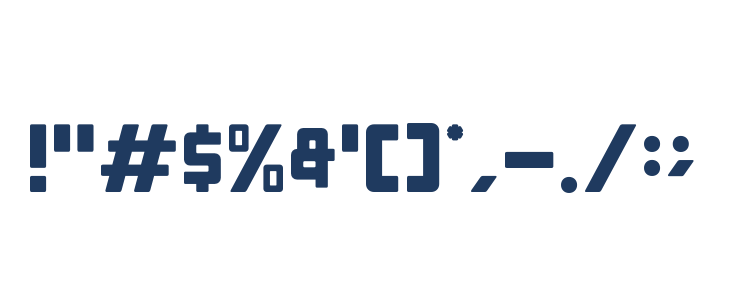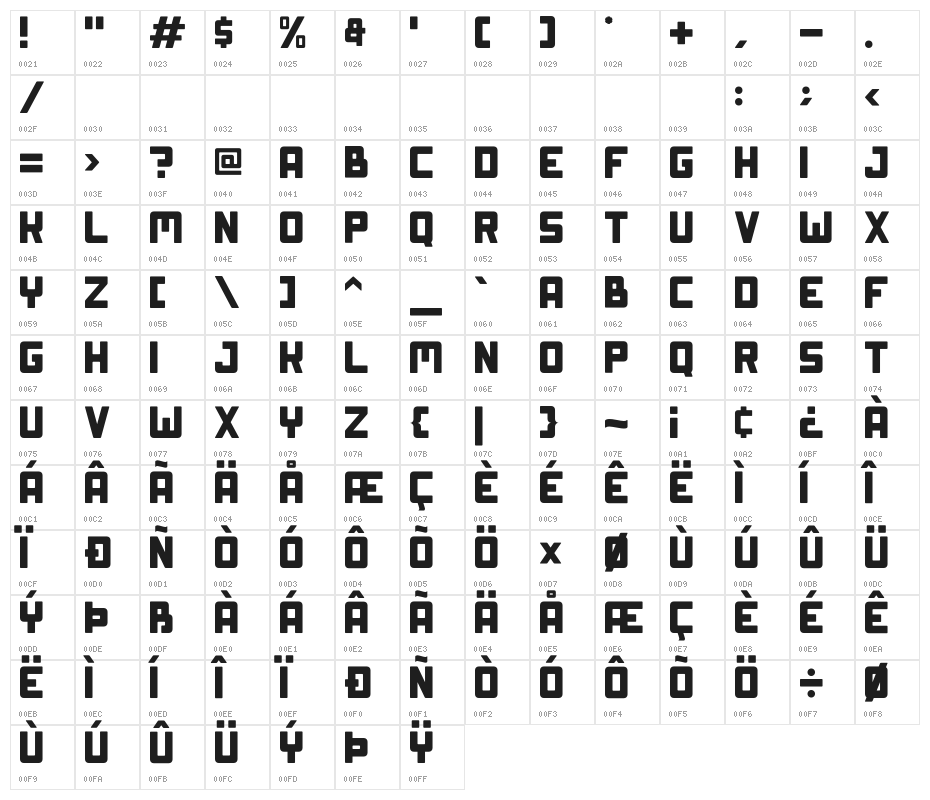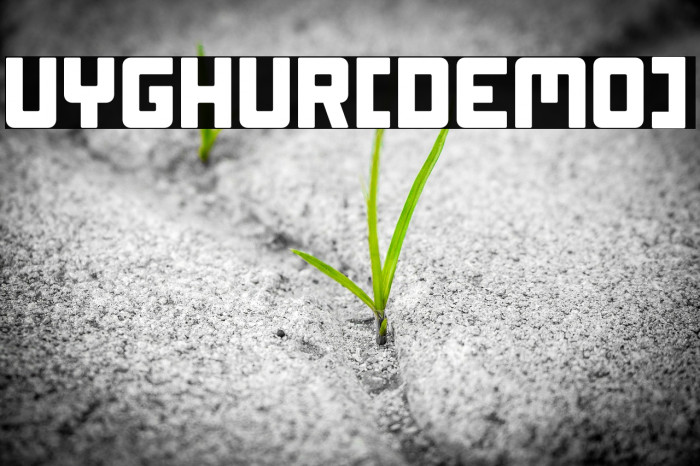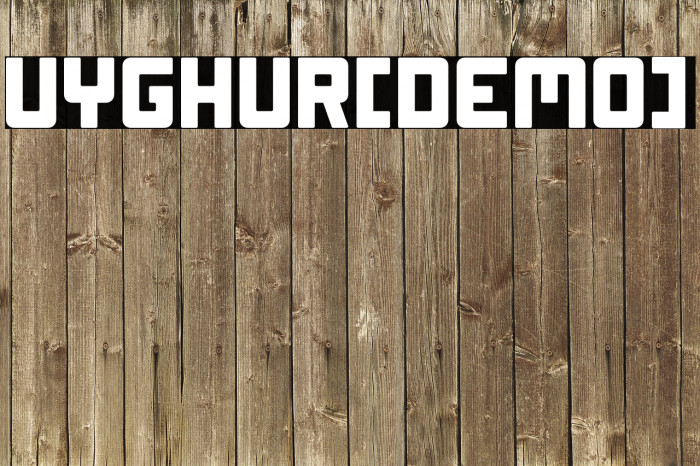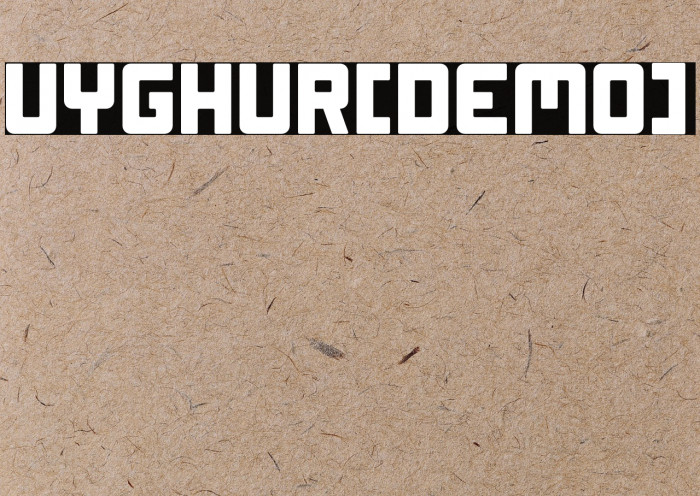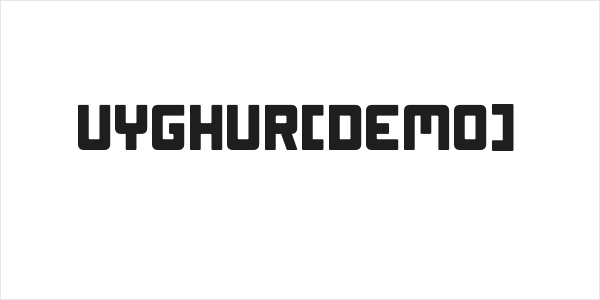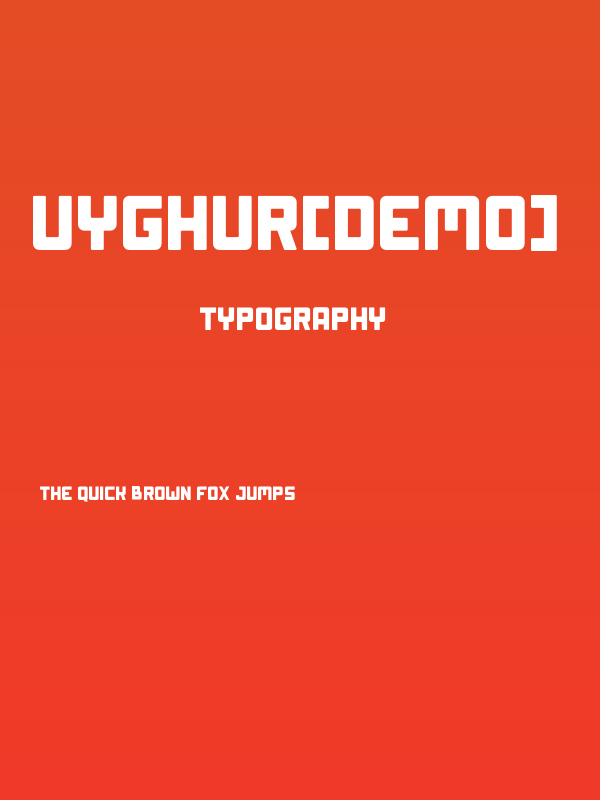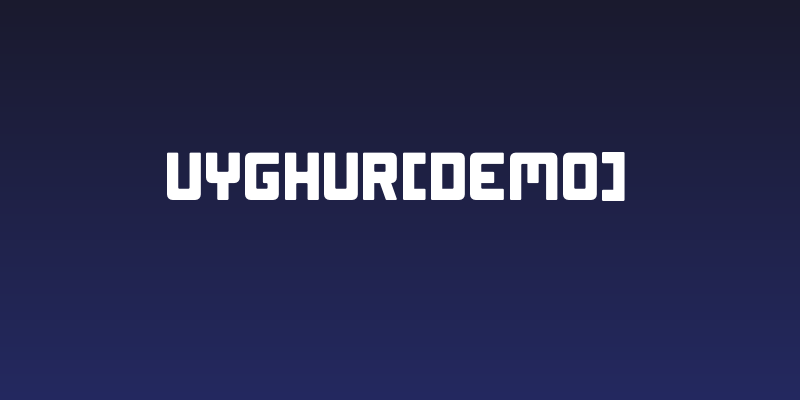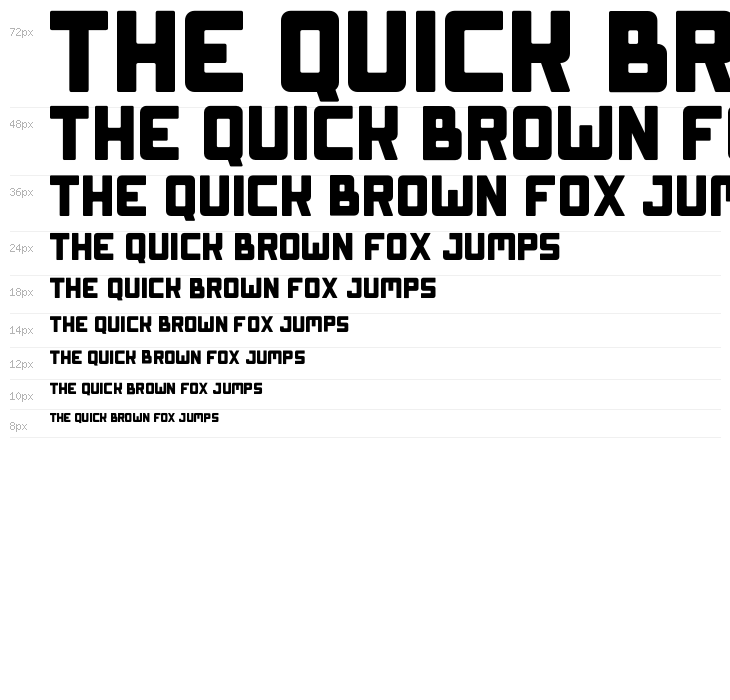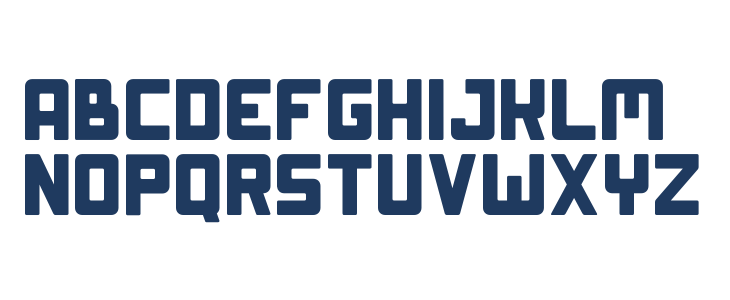
Uyghur[Demo] Font
Uyghur[Demo] Description
This font features a bold and geometric design with a modern aesthetic. The characters are constructed with thick, uniform strokes, giving them a strong and impactful presence. The angular and blocky shapes of the letters create a sense of stability and strength, making it suitable for attention-grabbing headlines and titles. The uppercase letters are particularly striking, with a consistent height and width that enhances readability. The font's design is clean and minimalistic, with no additional flourishes or embellishments, emphasizing its contemporary style.
| Proposed Projects | Ideal for branding projects, posters, headlines, and any design requiring a strong visual impact. |